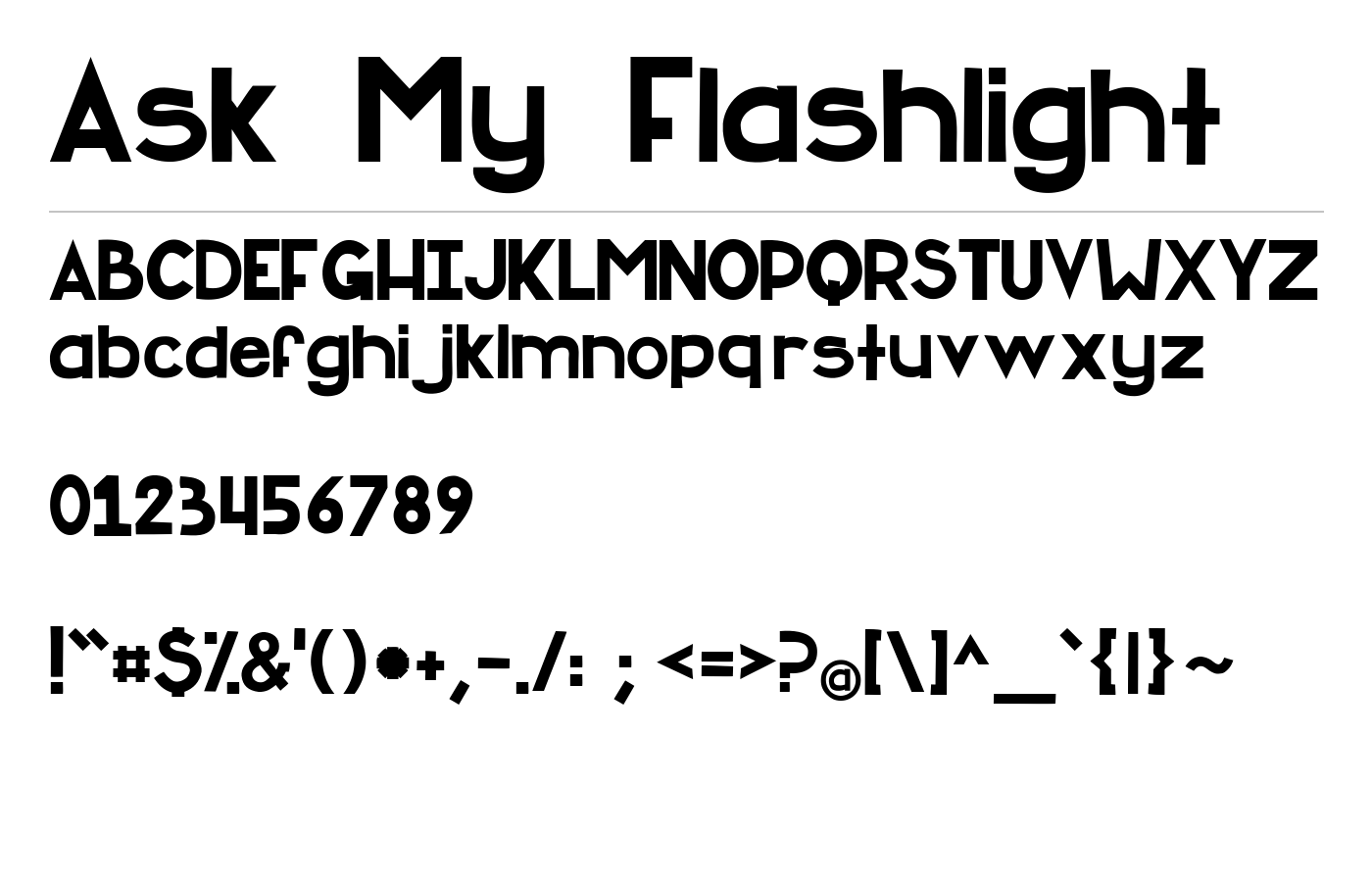
Ask My Flashlight is a playful, geometric sans serif font with a slightly quirky charm. It features bold, clean strokes with moderate width and rounded corners, combining a friendly, approachable feel with modern simplicity. This font works great for creative logos, children’s materials, and casual headlines where a unique yet readable style is needed.
| Designer | Matthew Tyndall |